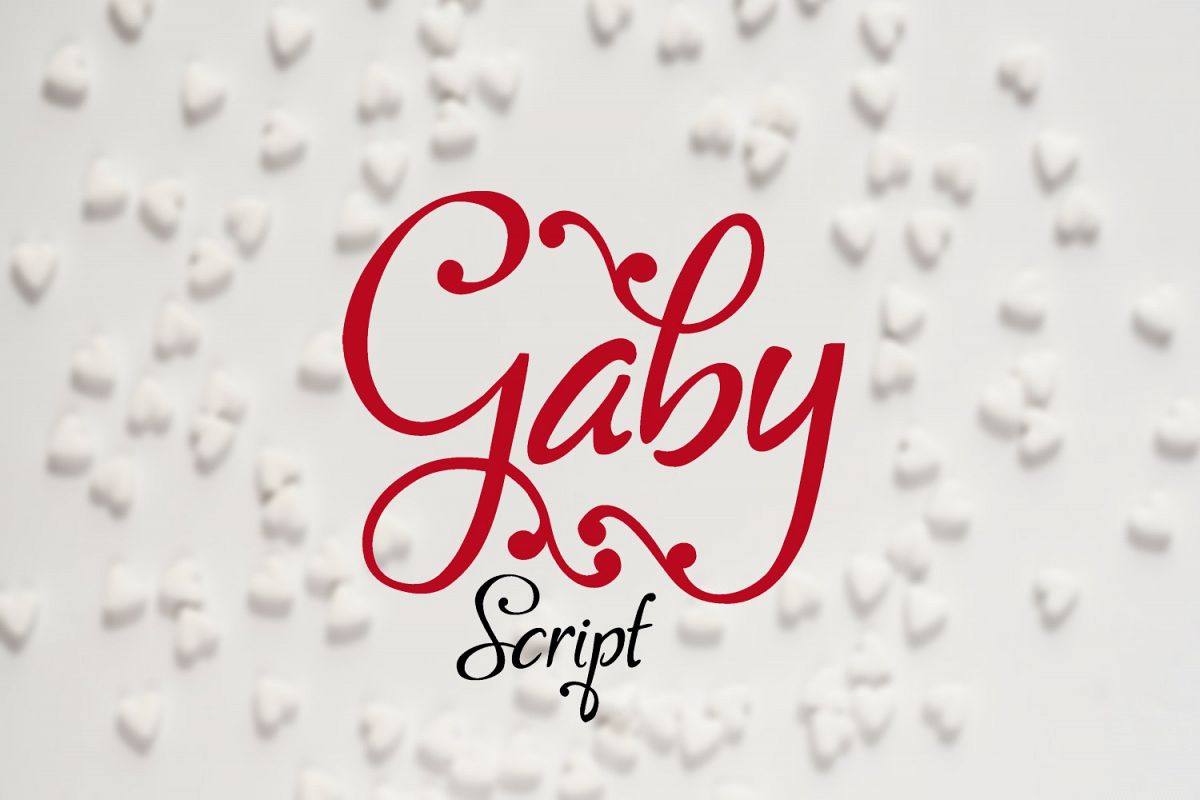
Gaby Font
Gaby
Introducing Gaby handwritten typeface.
Great for cards cards, embroidery, stamps, stencils, engraving, laser cutting and more!
Gaby Font